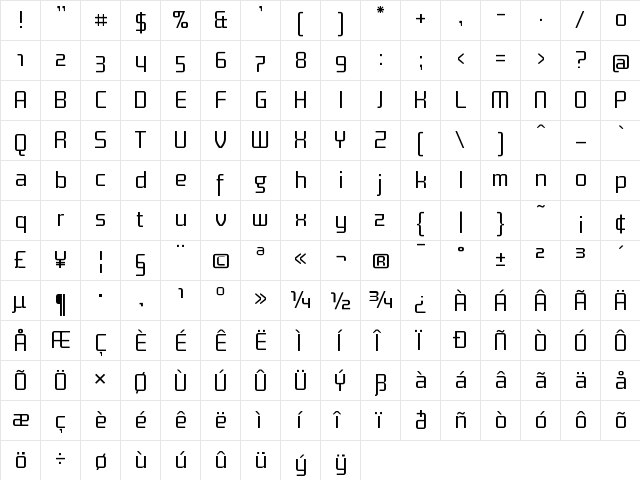
TitanText Regular Font Preview
TitanText Regular
Design Context for TitanText Typeface
TitanText offers clean, dependable letterforms without strong stylistic allegiance, making it a practical choice for designers who need flexibility.
Pro Tip: Use TitanText in both headline and body roles to test its range before committing to a single application.